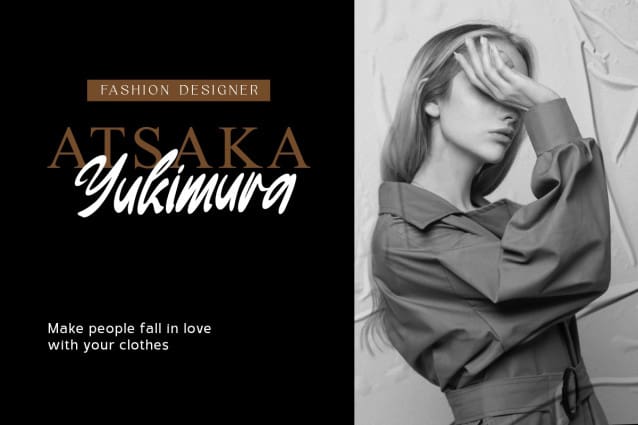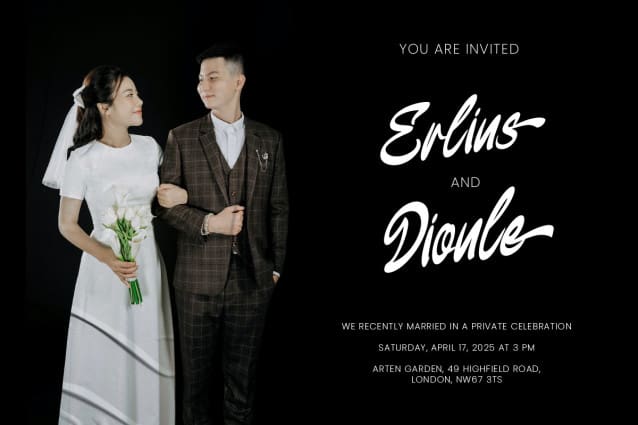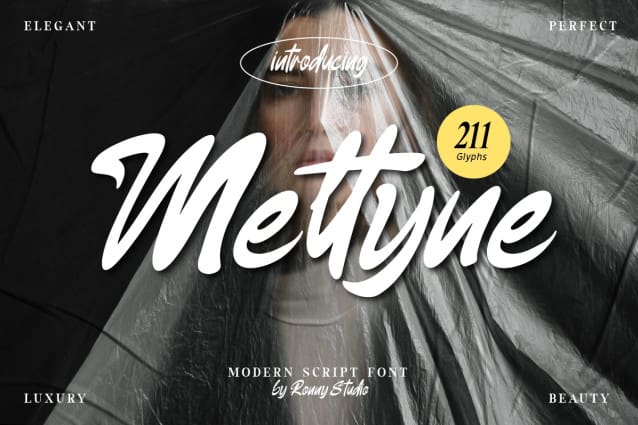
Meltyne Font
Meltyne Font is created with a natural modern script with a fresh modern script providing a stylish script guaranteed to add eye-catching appeal to your logo designs, brand imagery, quotes, product packaging, merchandise & social media posts